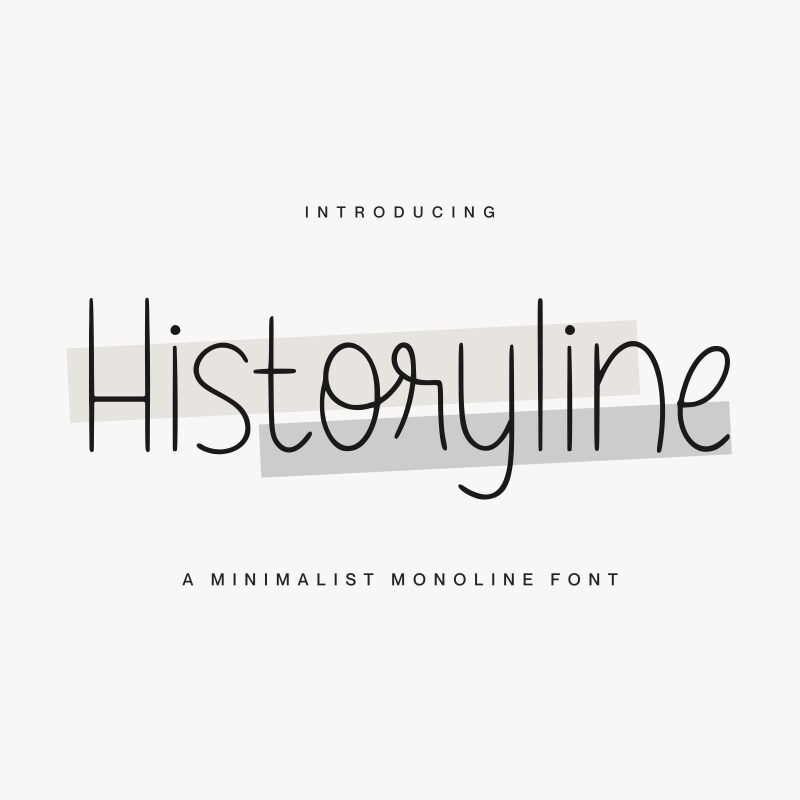
Historyline
Historyline is a beautifully crafted, handwritten font designed by Allouse Studio. This extra-light, semi-condensed typeface boasts a minimalist monoline style that exudes sophistication and elegance. Perfect for a wide range of projects, this font is ideal for everything from wedding invitations to book covers. Its delicate strokes and clean lines make it an excellent choice for branding materials, including logos and packaging design. Whether you're looking to add a touch of class to your website or create stunning visuals for your social media feeds, Historyline is the perfect choice for any creative endeavor.